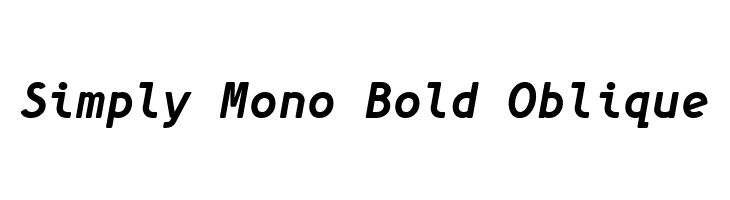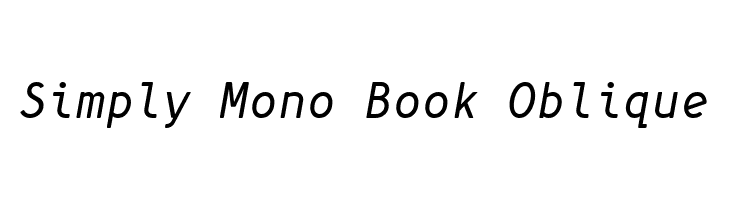
A clean, monospaced font perfect for coding and technical documents.
A bold, monospaced font with rounded, uniform characters.
A bold, oblique monospaced font with a modern and dynamic style.
A modern, monospaced font with an oblique slant and consistent stroke weight.
A clean, monospaced font with uniform spacing and modern design.